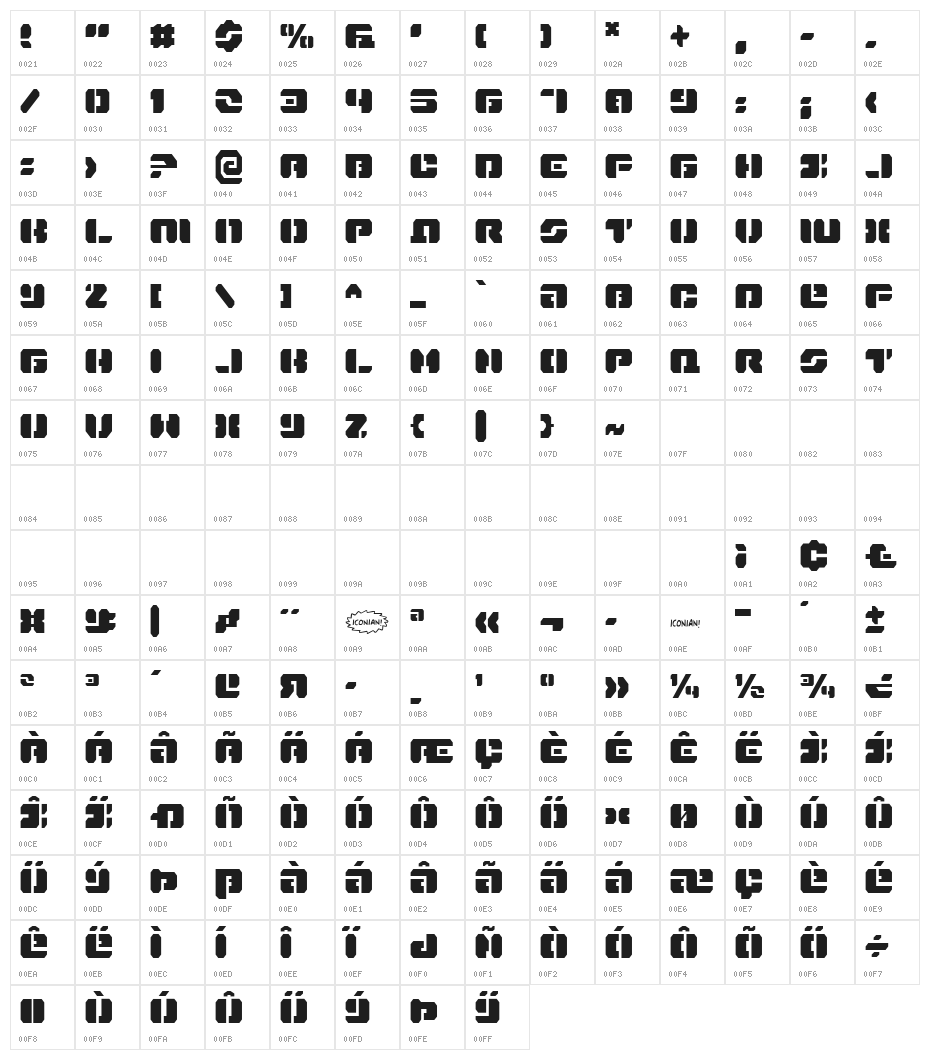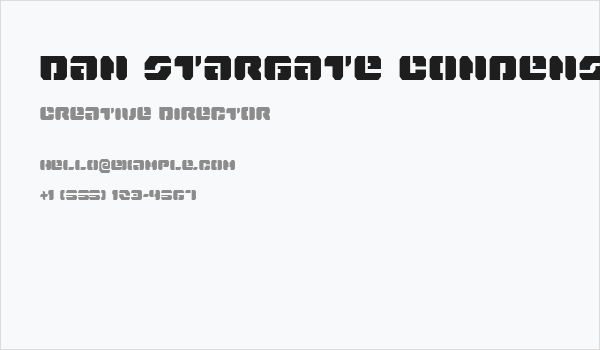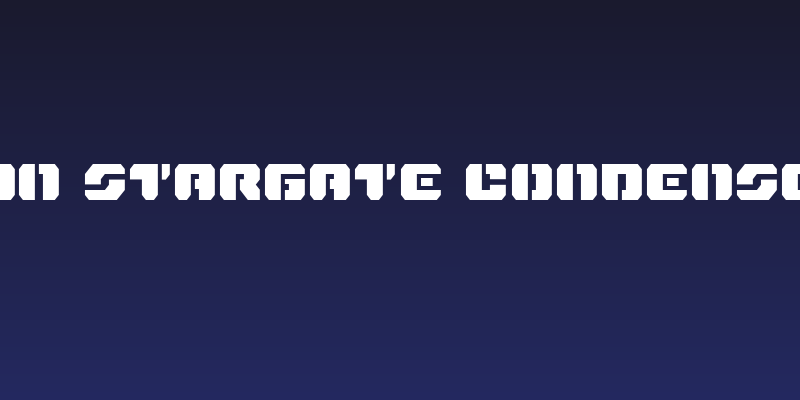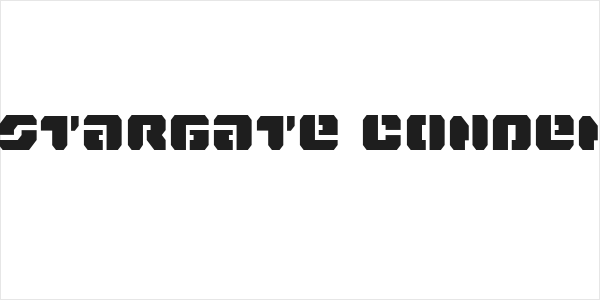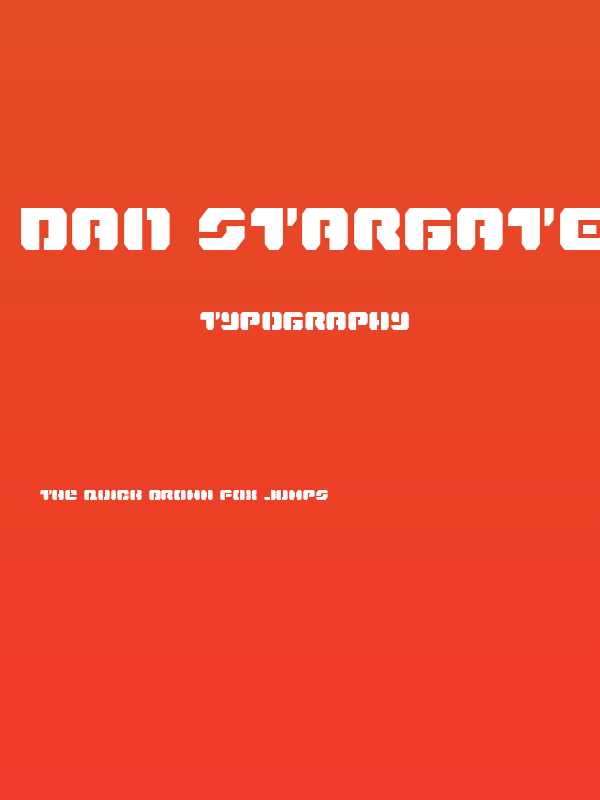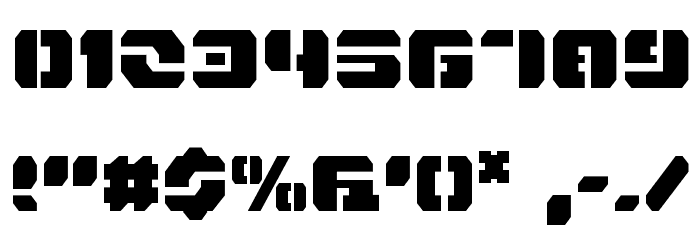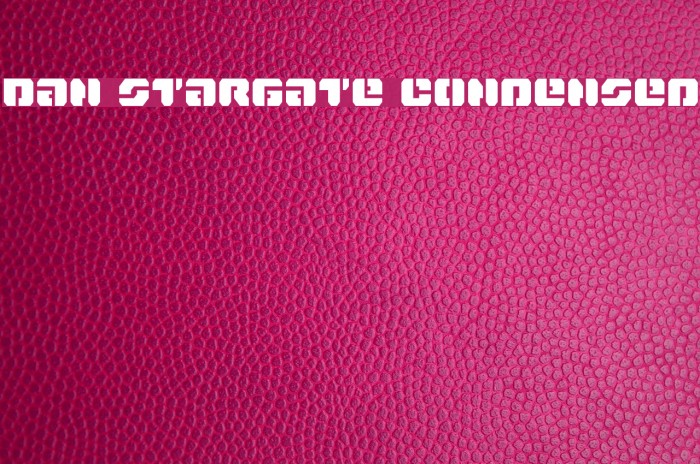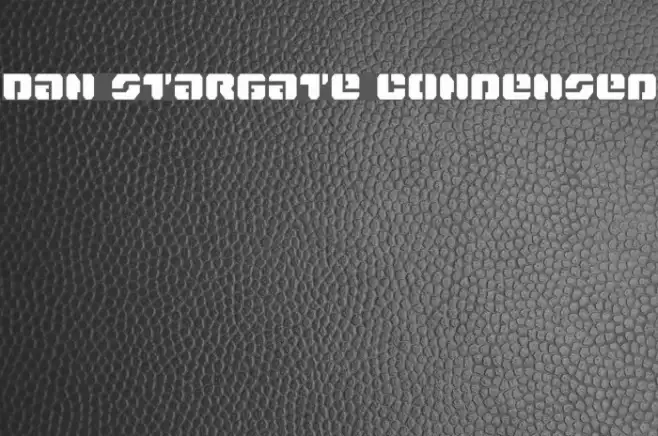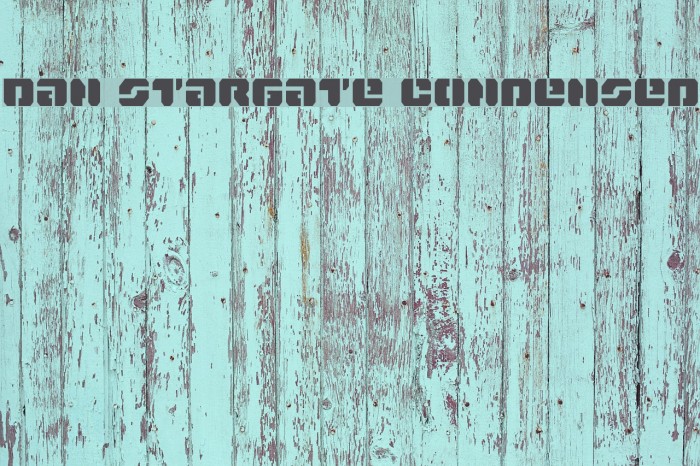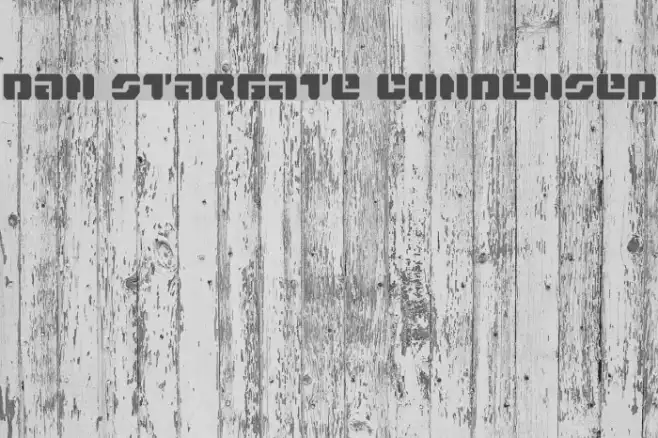
Dan Stargate Condensed Font
Dan Stargate Condensed Description
This font features a bold, geometric design with a futuristic and industrial aesthetic. The characters are constructed with sharp angles and straight lines, creating a sense of precision and modernity. The uppercase and lowercase letters maintain a consistent style, with the lowercase slightly smaller but equally bold. The numbers and special characters follow the same design principles, ensuring uniformity across all glyphs. The condensed nature of the font allows for efficient use of space, making it suitable for headlines or titles where impact is essential. The overall style is distinctive and eye-catching, ideal for projects that require a strong visual presence.
| Overall Style | Futuristic, Industrial |
| Proposed Projects | Ideal for sci-fi themed designs, video game titles, movie posters, and branding for tech companies. |